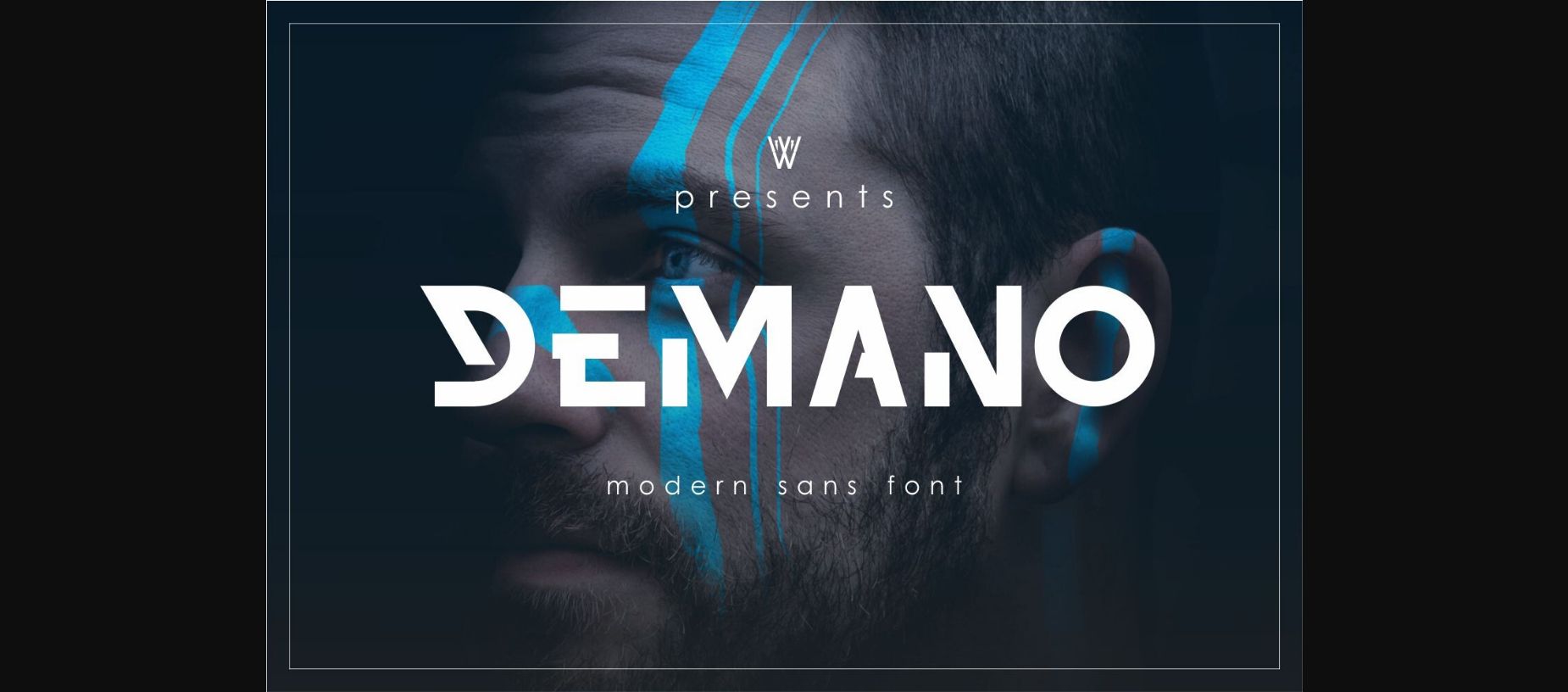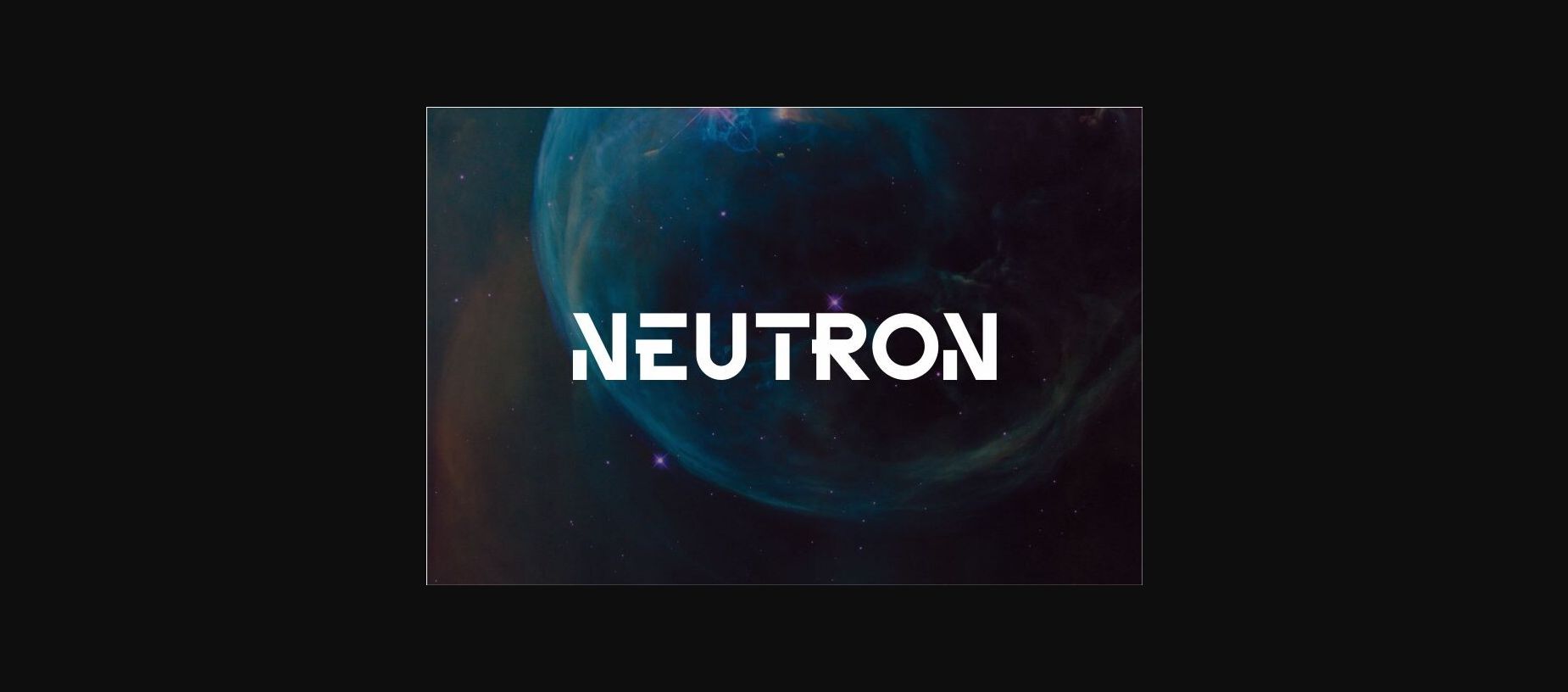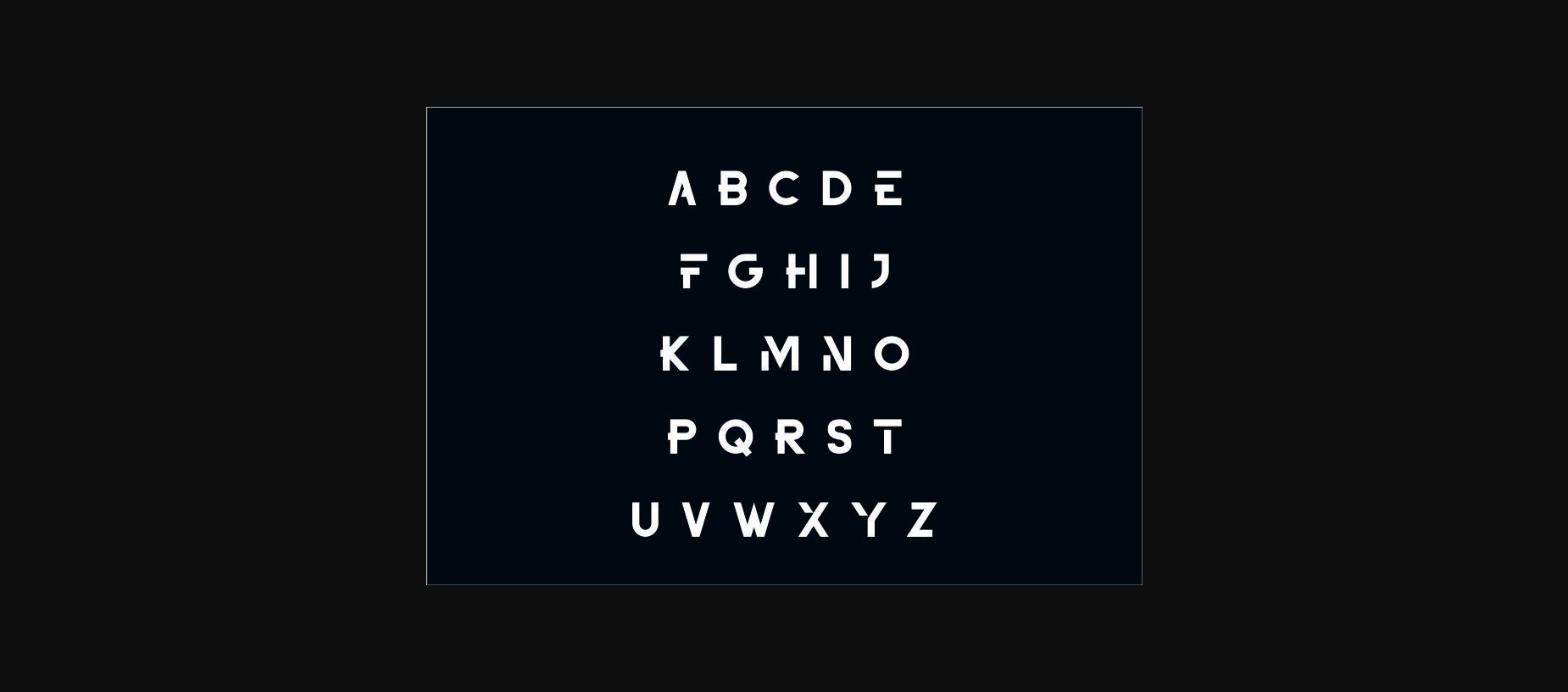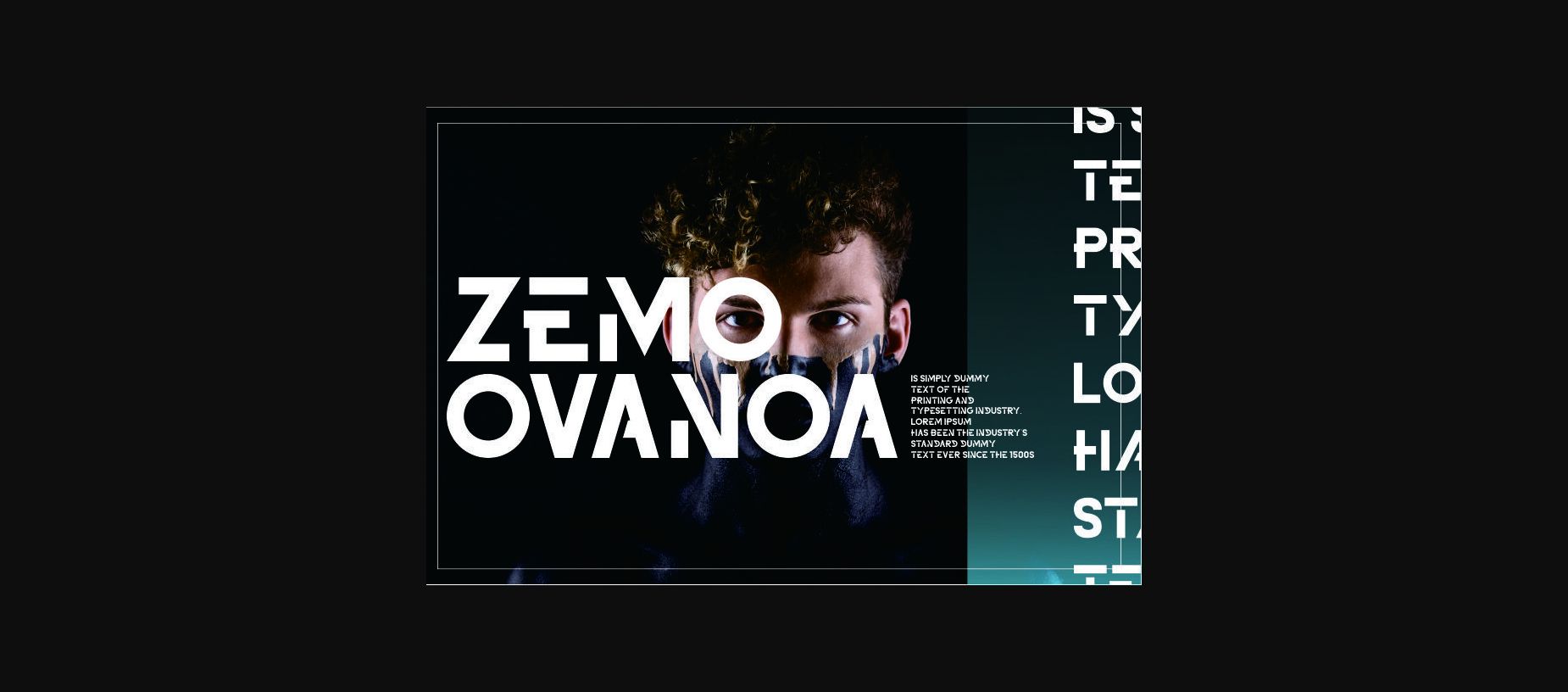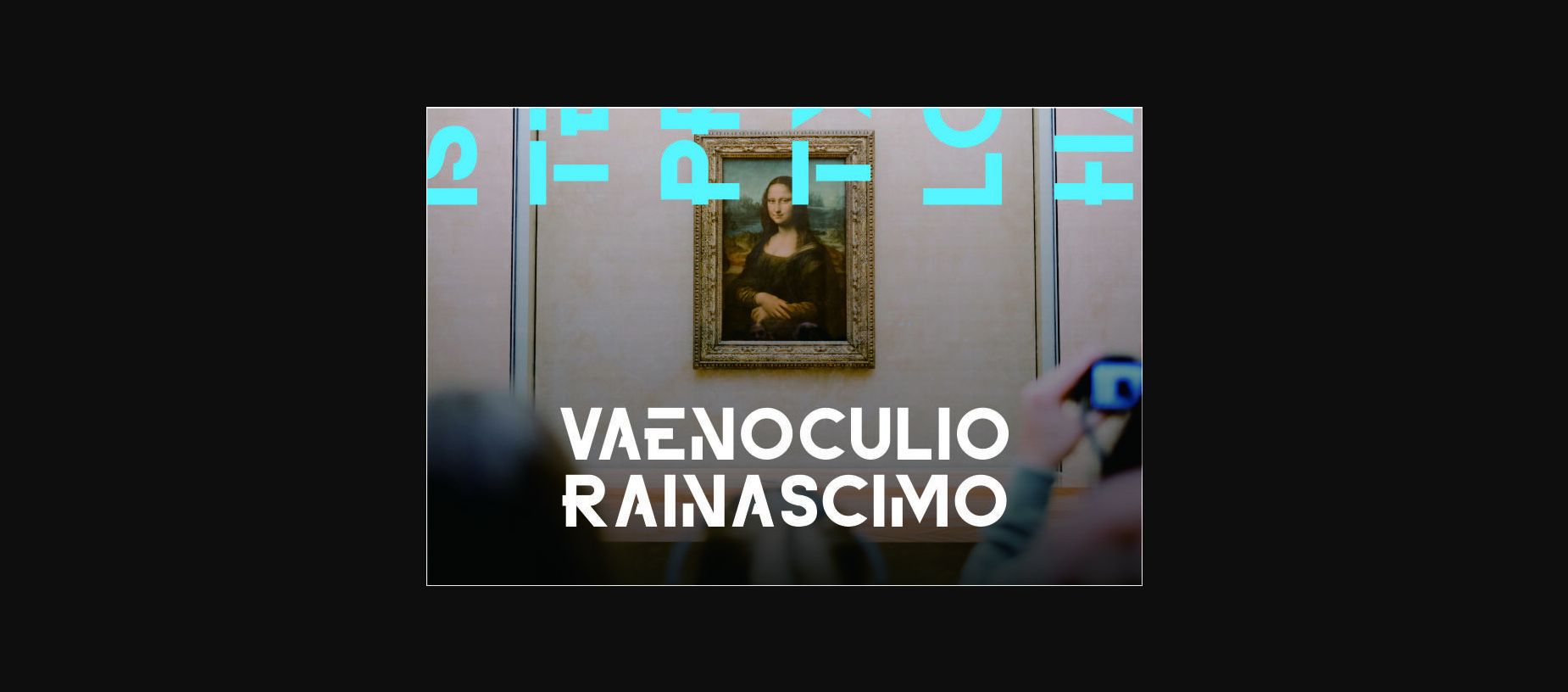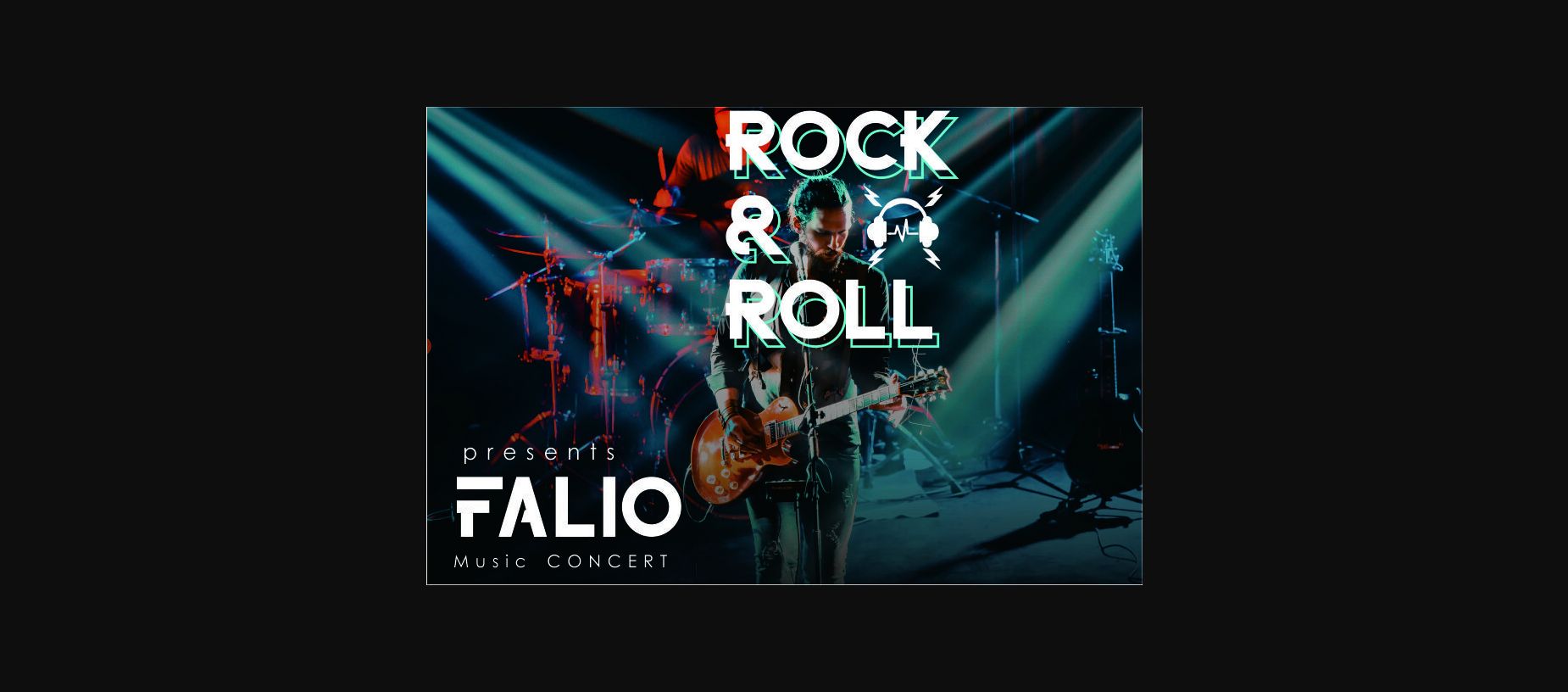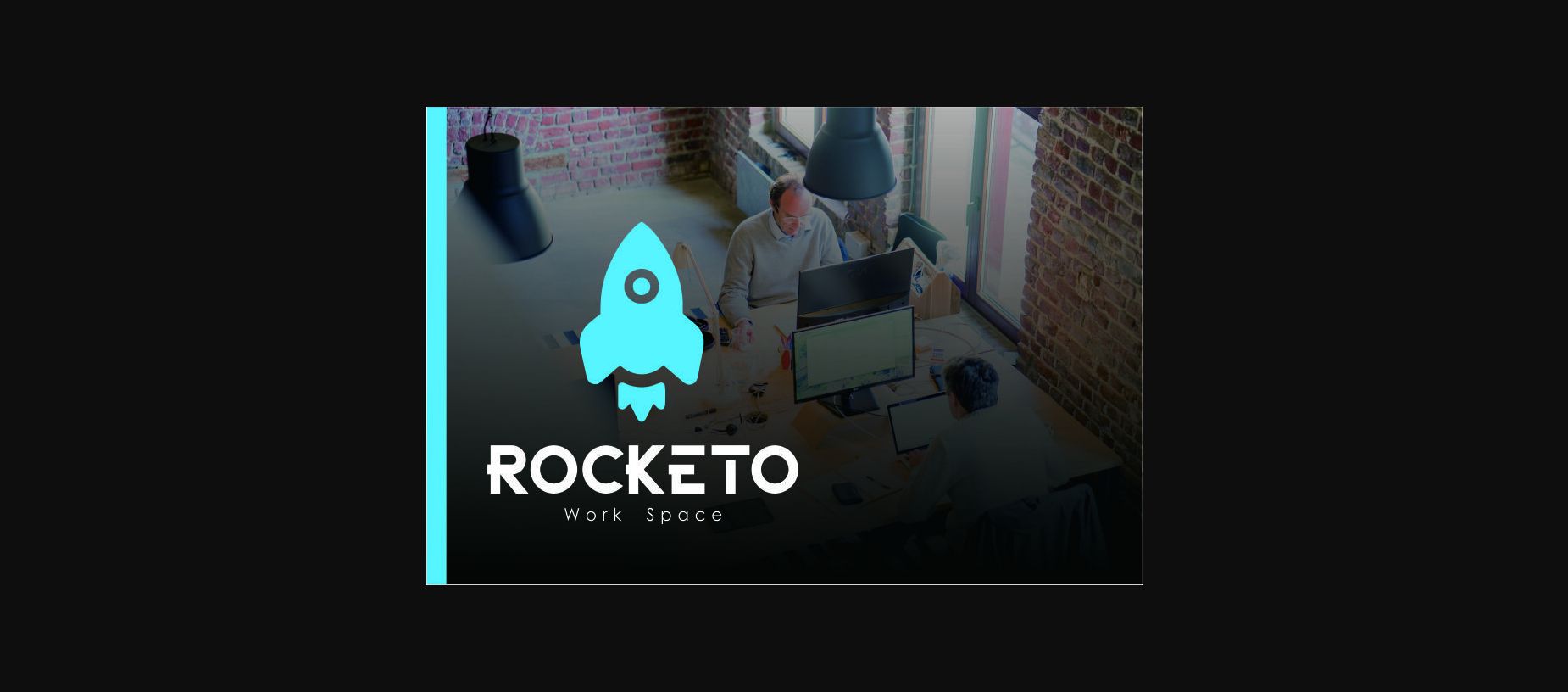
About Demano Font
Demano is an incredibly unique sans serif font. Masterfully designed to
become a true favorite, this font has the potential to bring each of your creative ideas to the highest level!